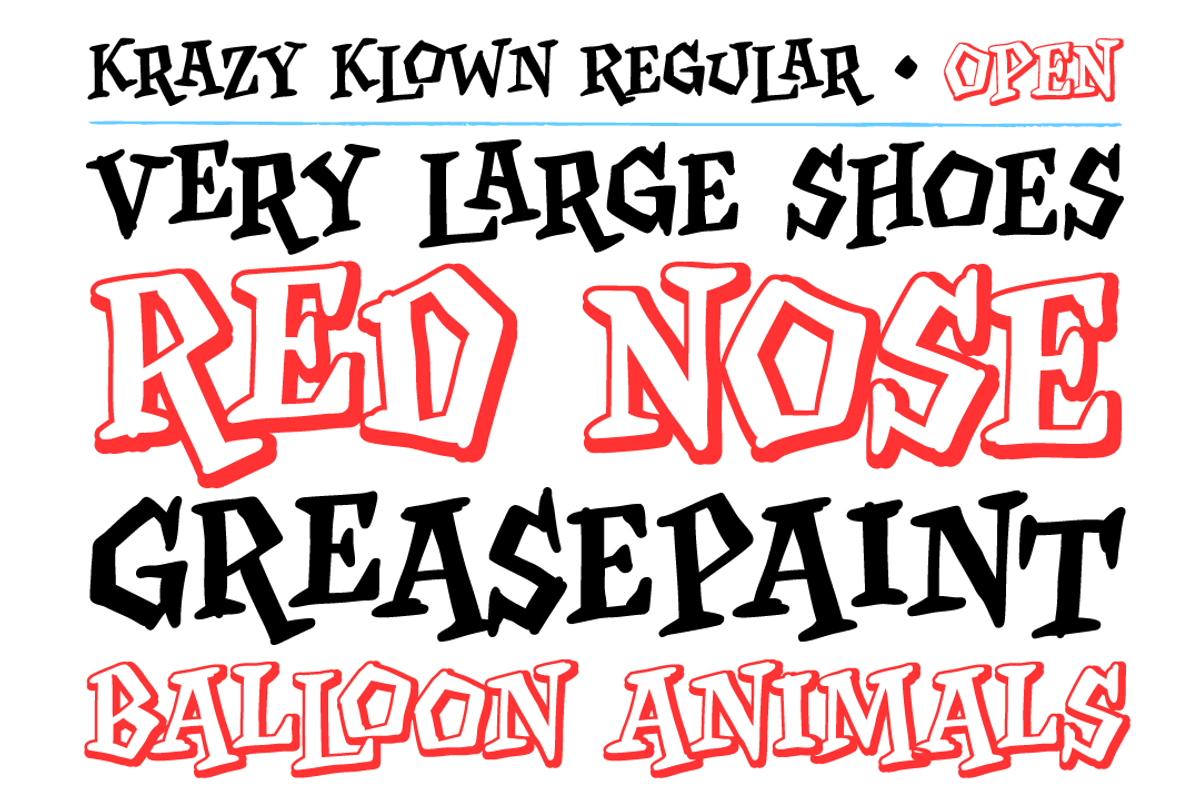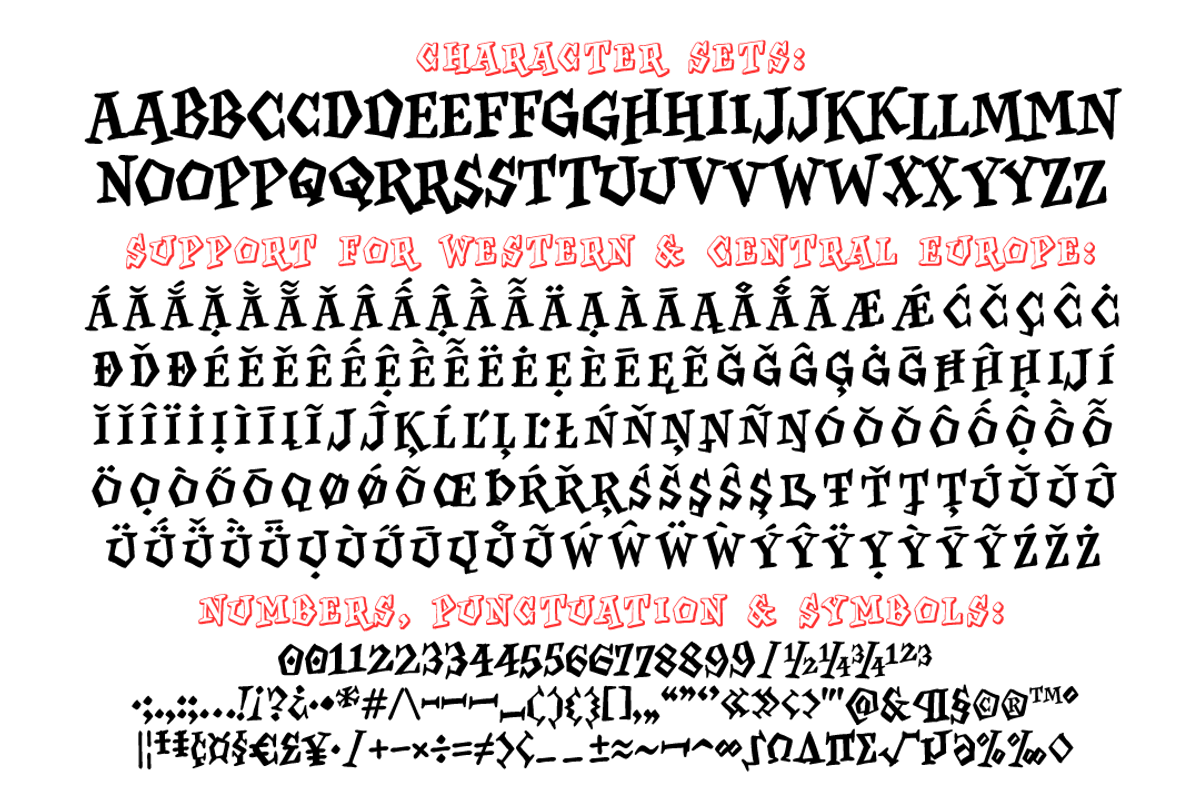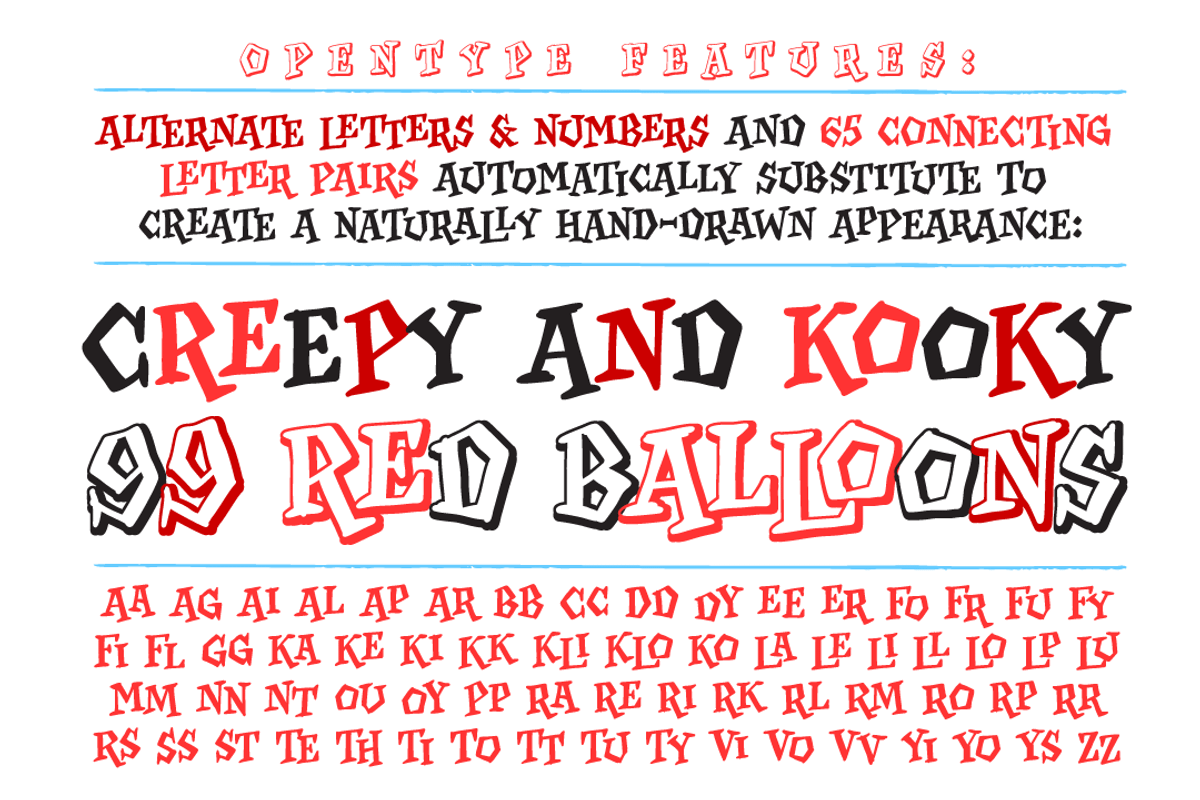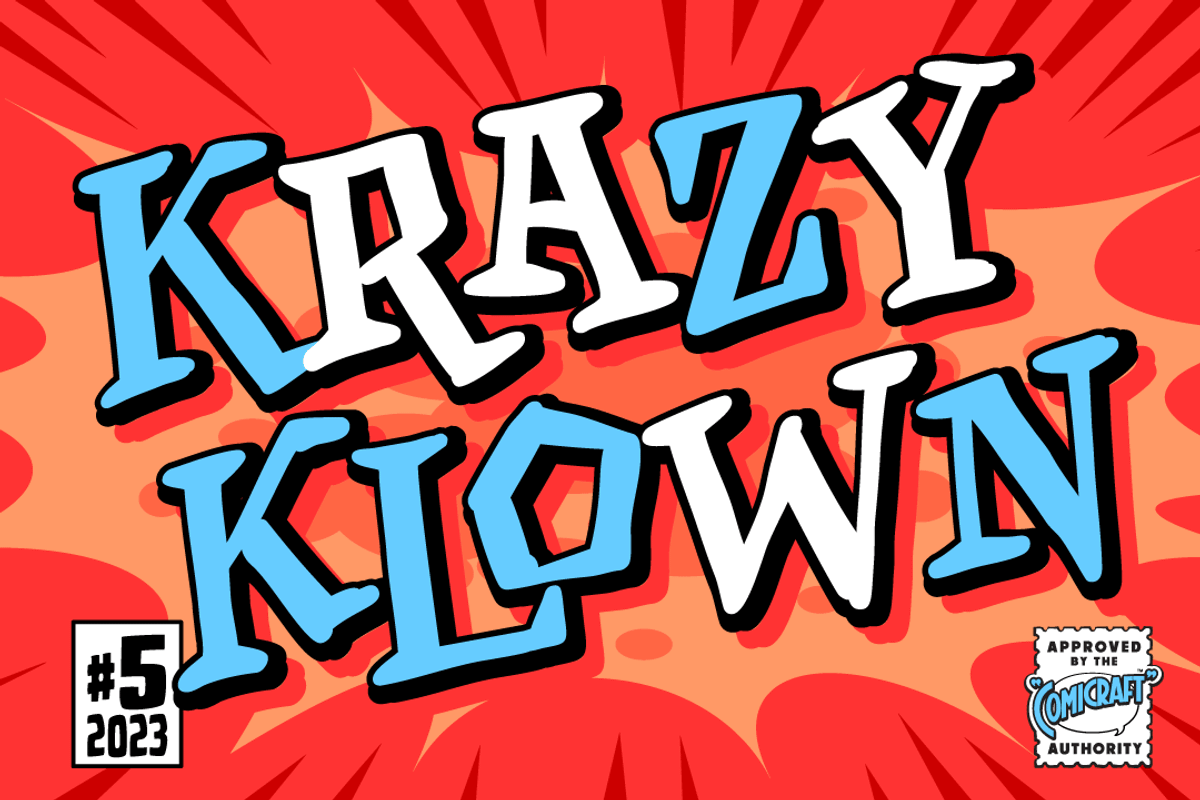
Krazy Klown - lively pen serif font
It’s Krusty! It’s a Krypt Kicker! It’s a Killer Kween! Its serifs are like dynamite with a Laser Beam!
KomiKraft’s new font Krazy Klown isn’t just white greasepaint and clown shoes, it’s hiding in the drain system ready to surprise you with alternate Kharakters, Killer ligatures and did we mention Krazy Klown shoes?
Kooky John K Roshell has kooked up a kinky font that is the perfect Kompliment to Monster Mash and Carry On Screaming. It’s a little bit Tiki and a whole lotta Kicky!
Features two weights with alternate uppercase alphabets • Languages: Western & Central Europe • Features: Automatic Alternates & Connecting Ligatures